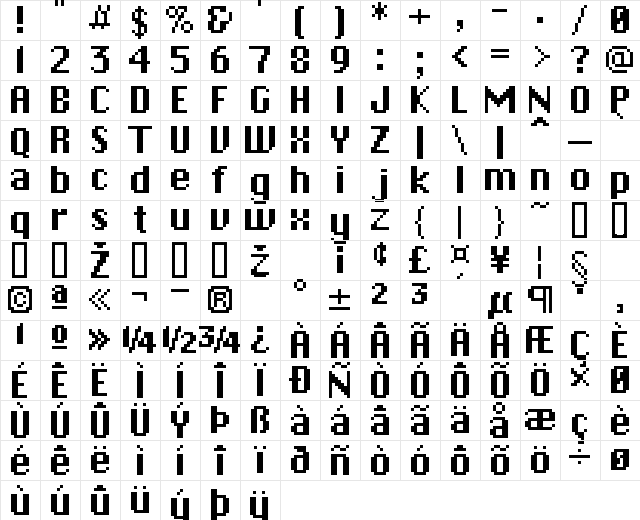
pix Chicago Regular
Design Context for pix Chicago Typeface
pix Chicago offers clean, dependable letterforms without strong stylistic allegiance, making it a practical choice for designers who need flexibility.
Pro Tip: Use pix Chicago in both headline and body roles to test its range before committing to a single application.